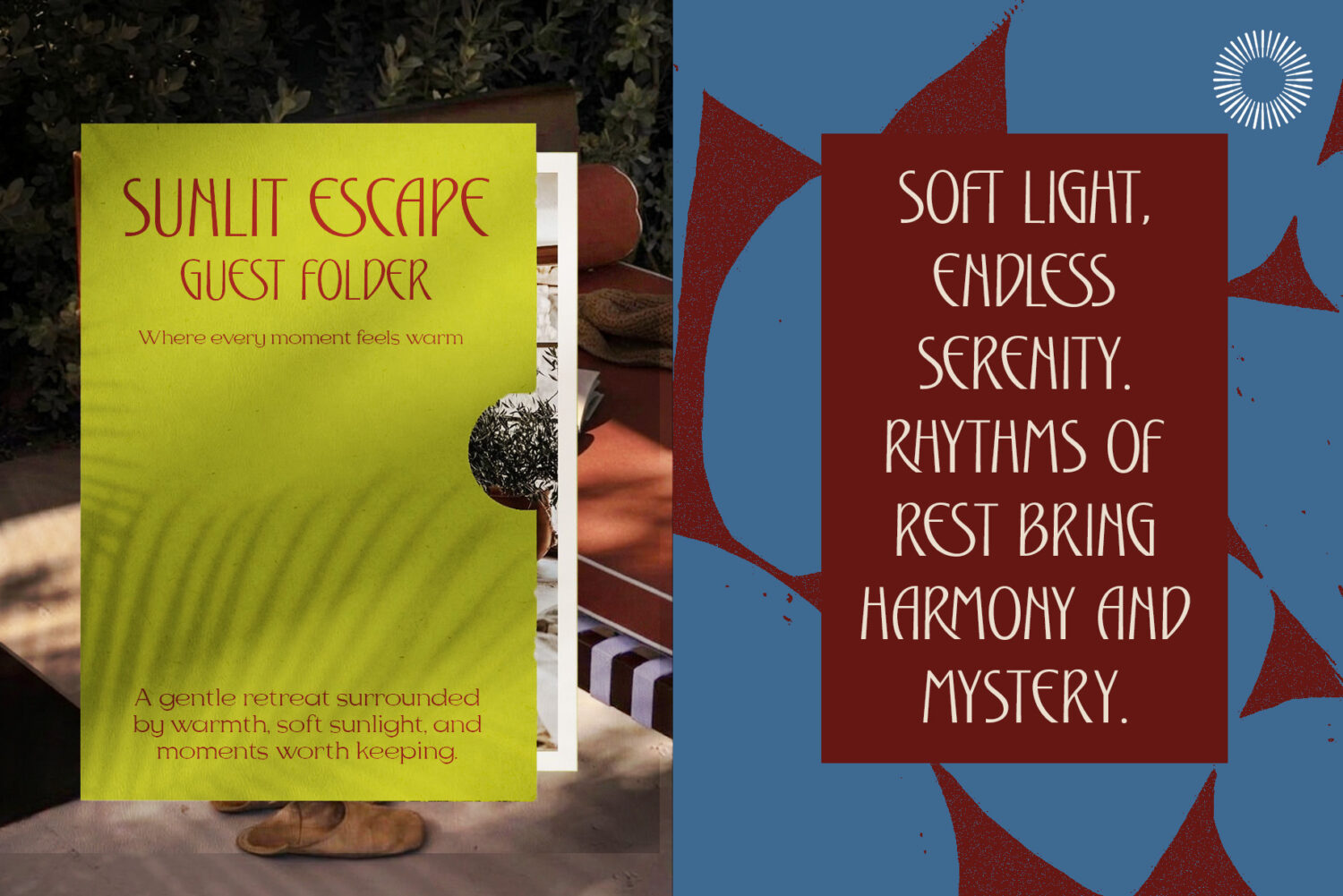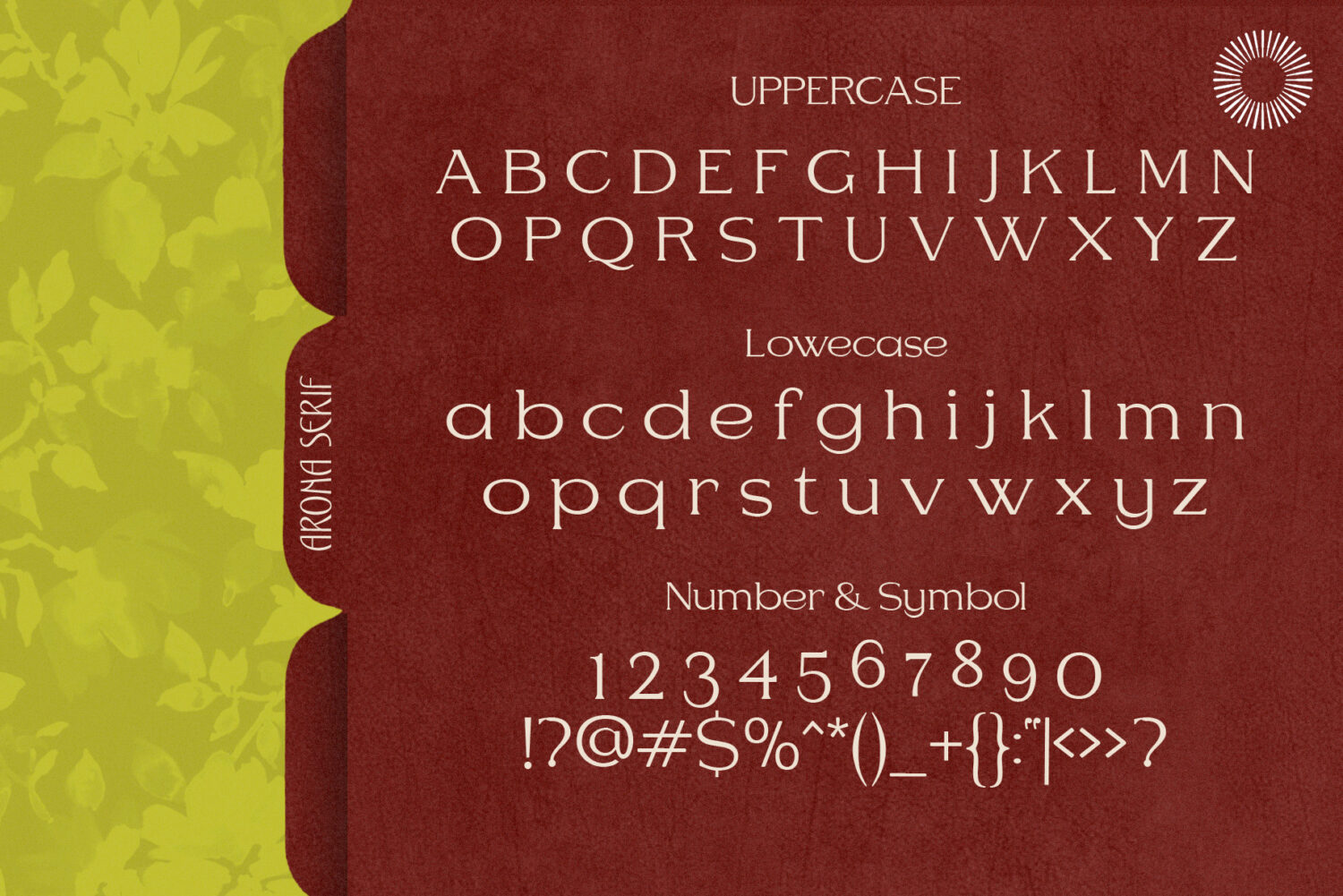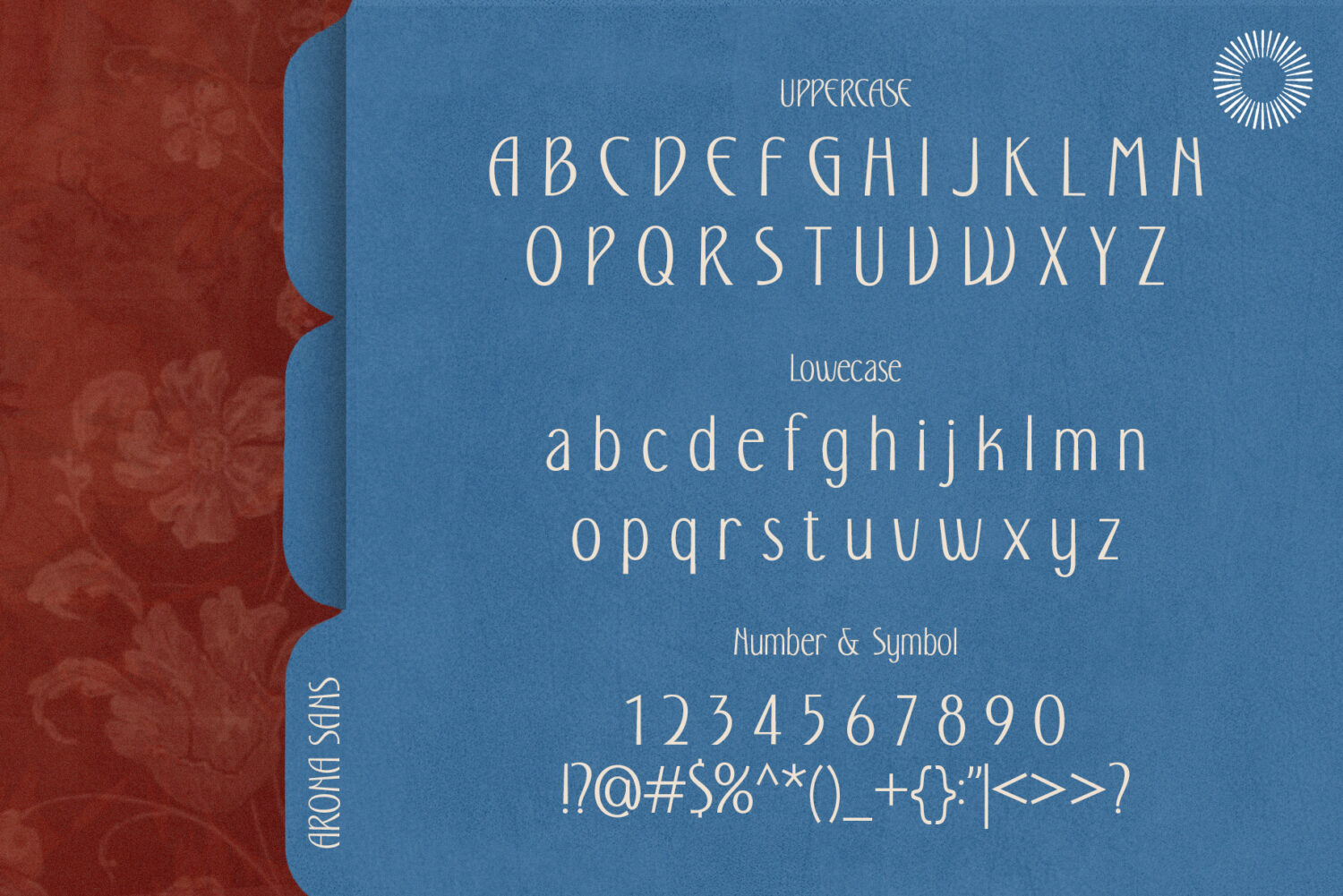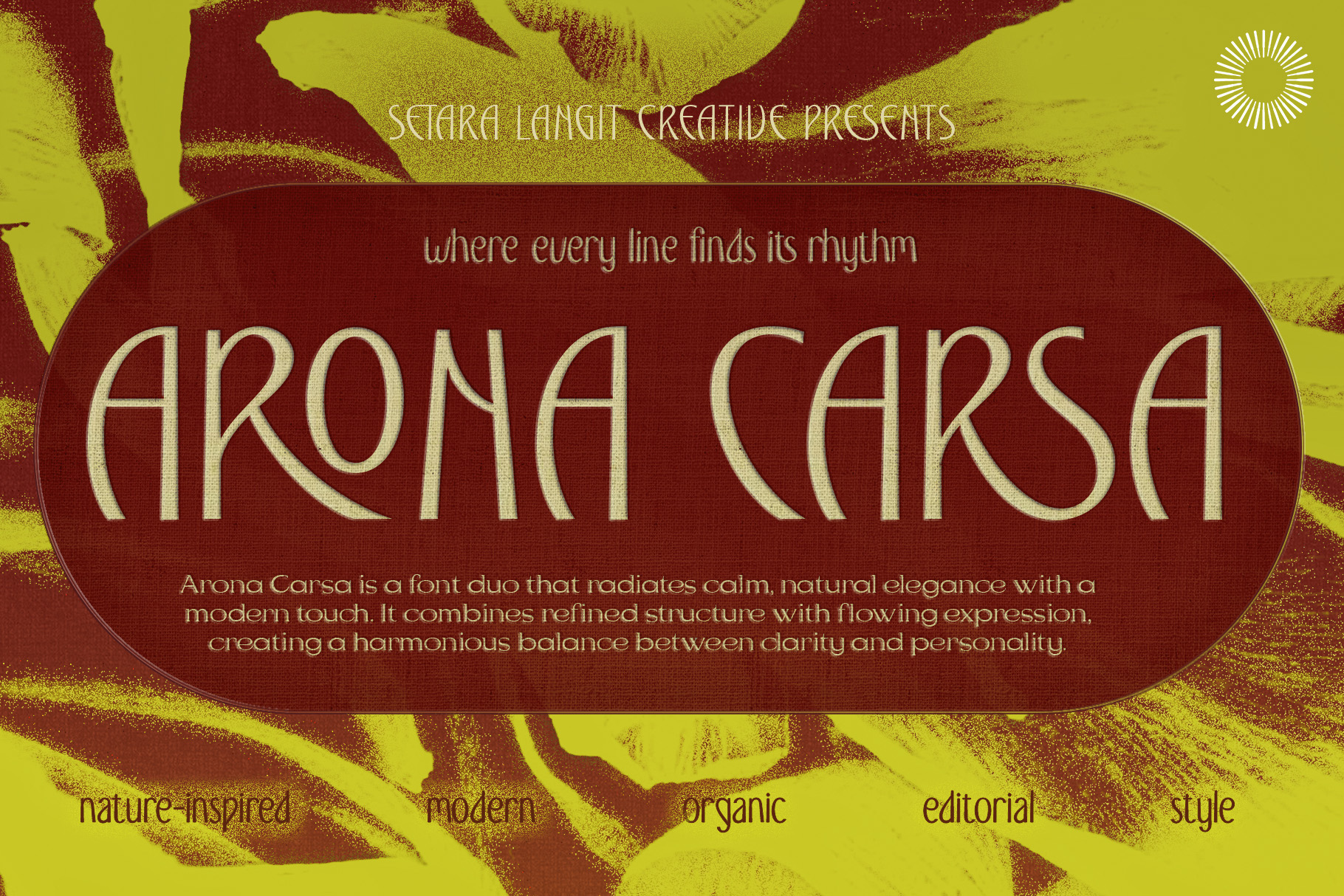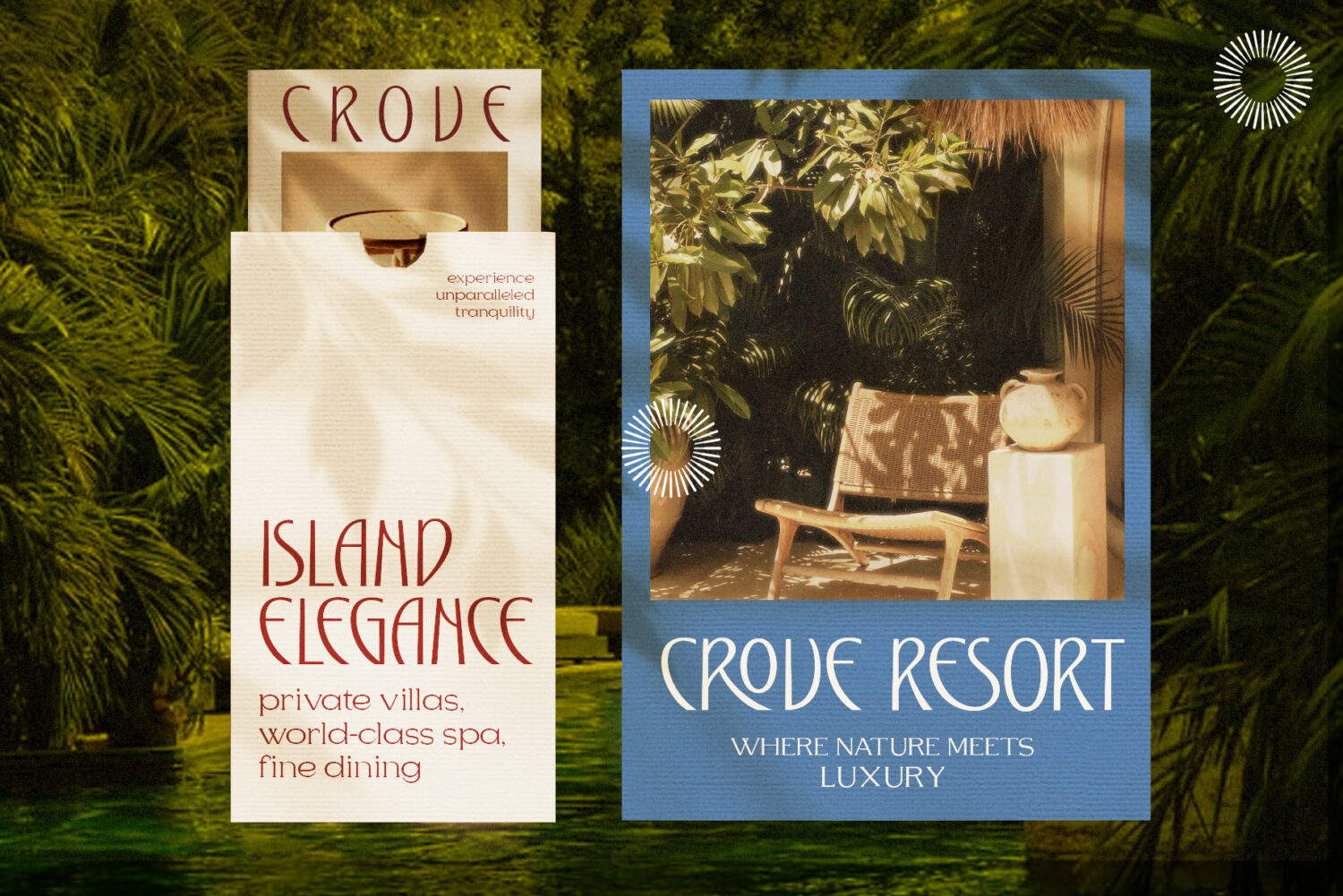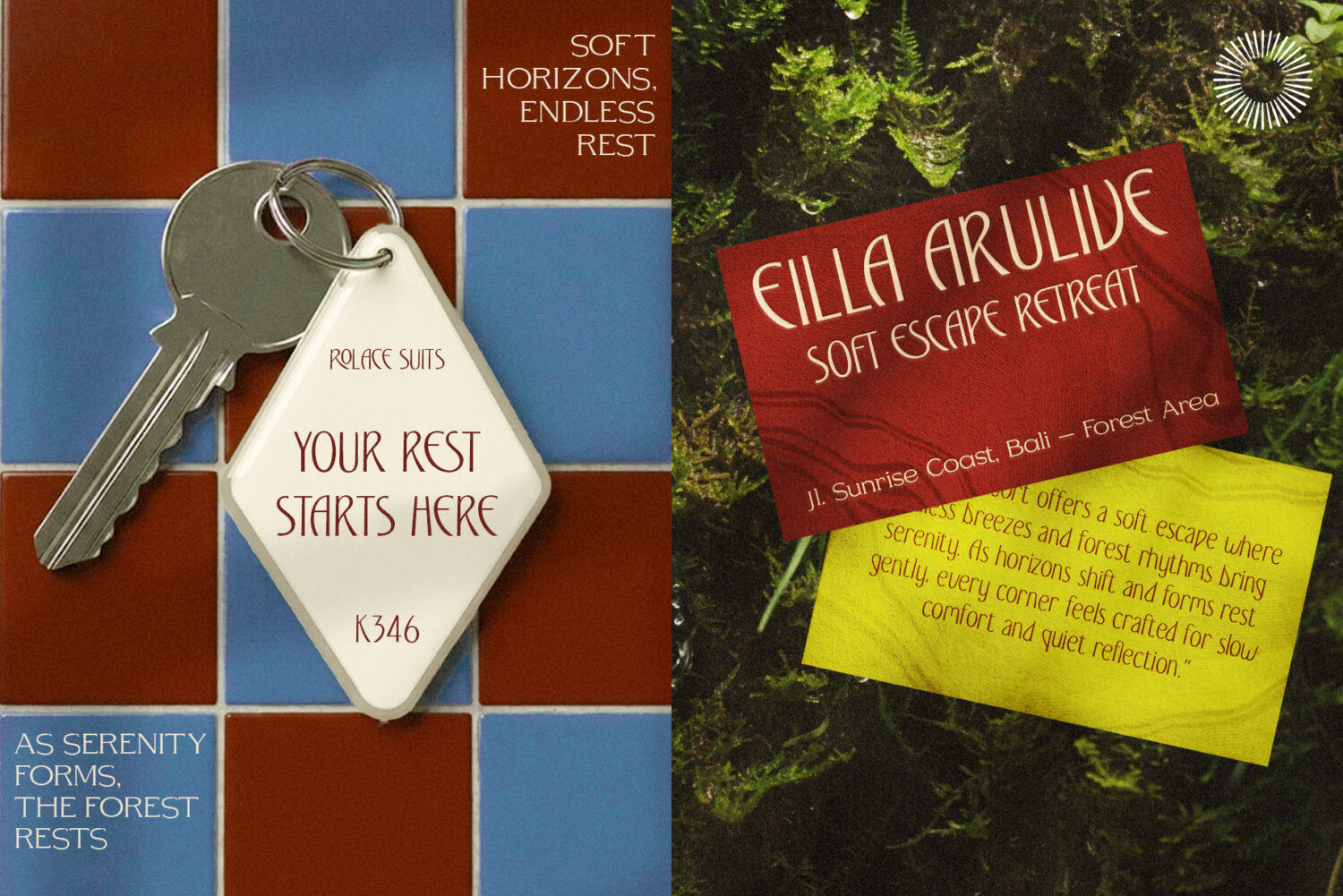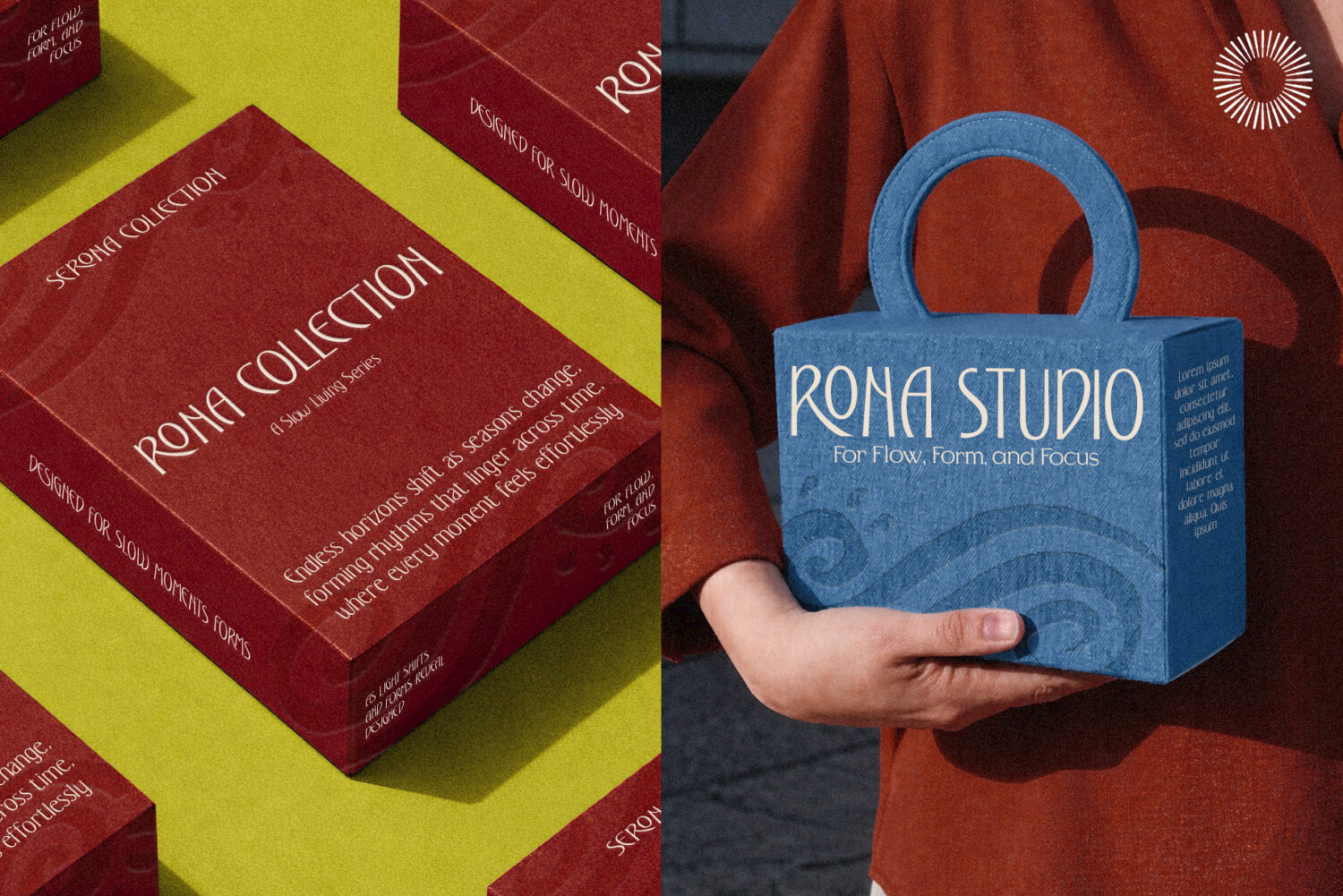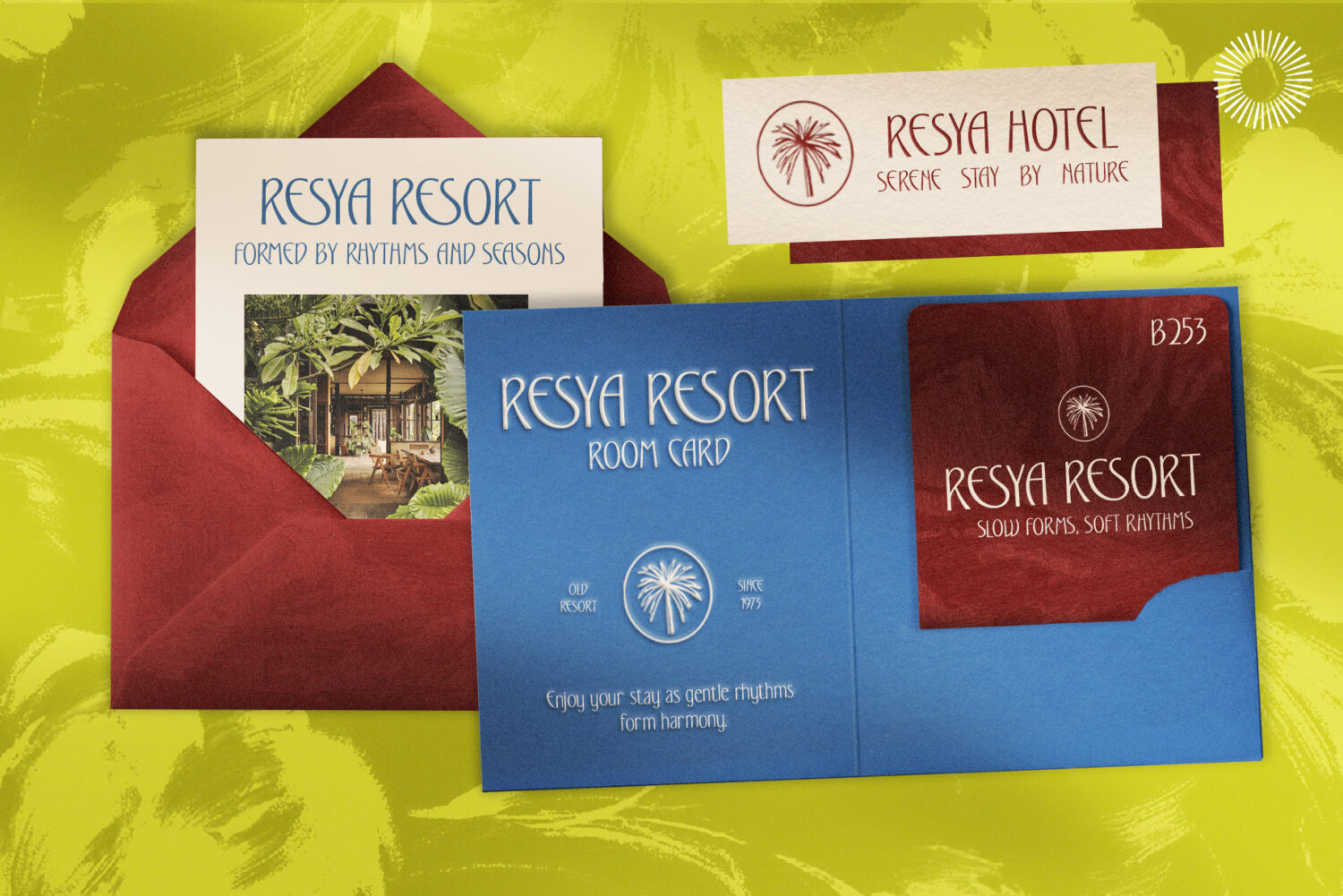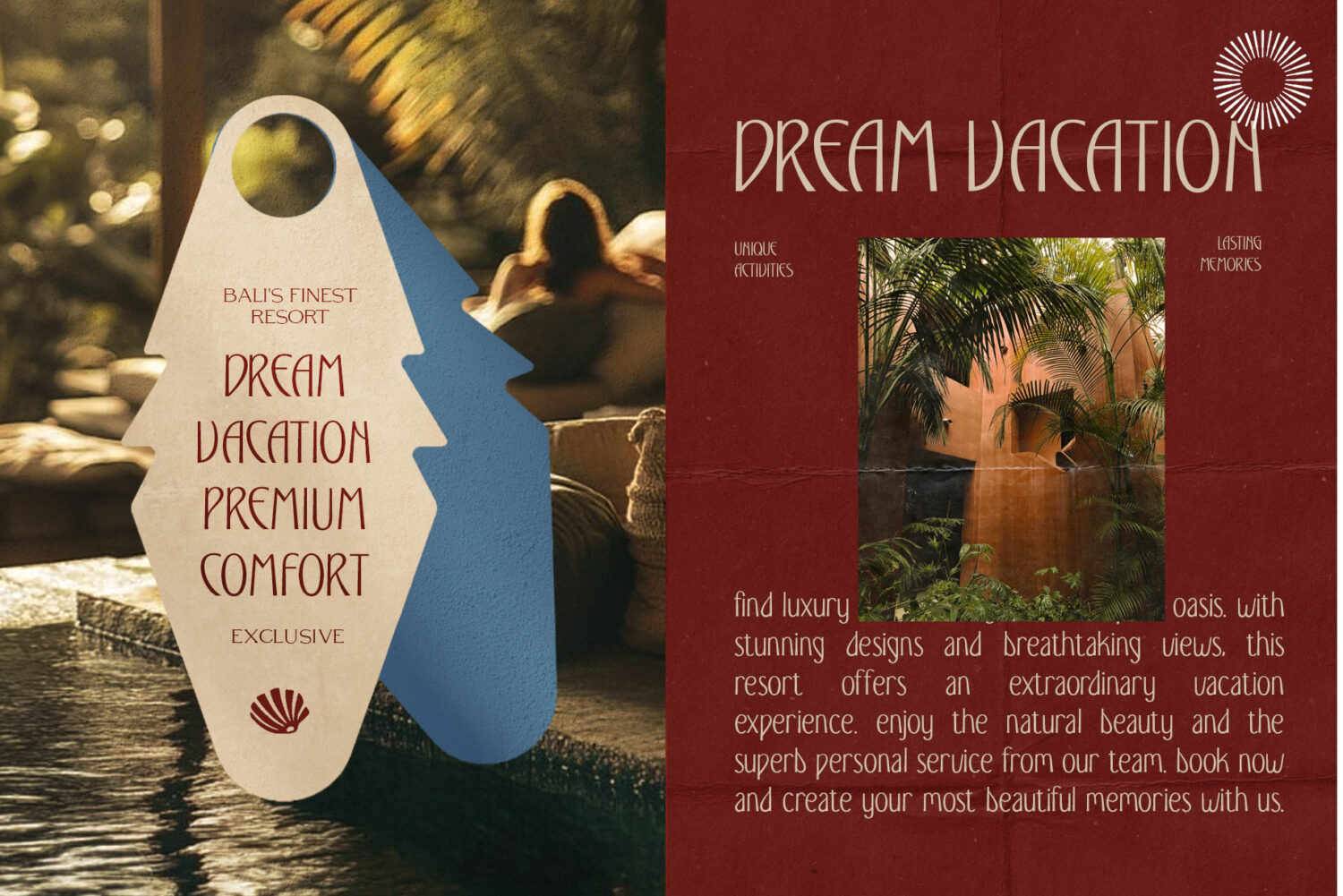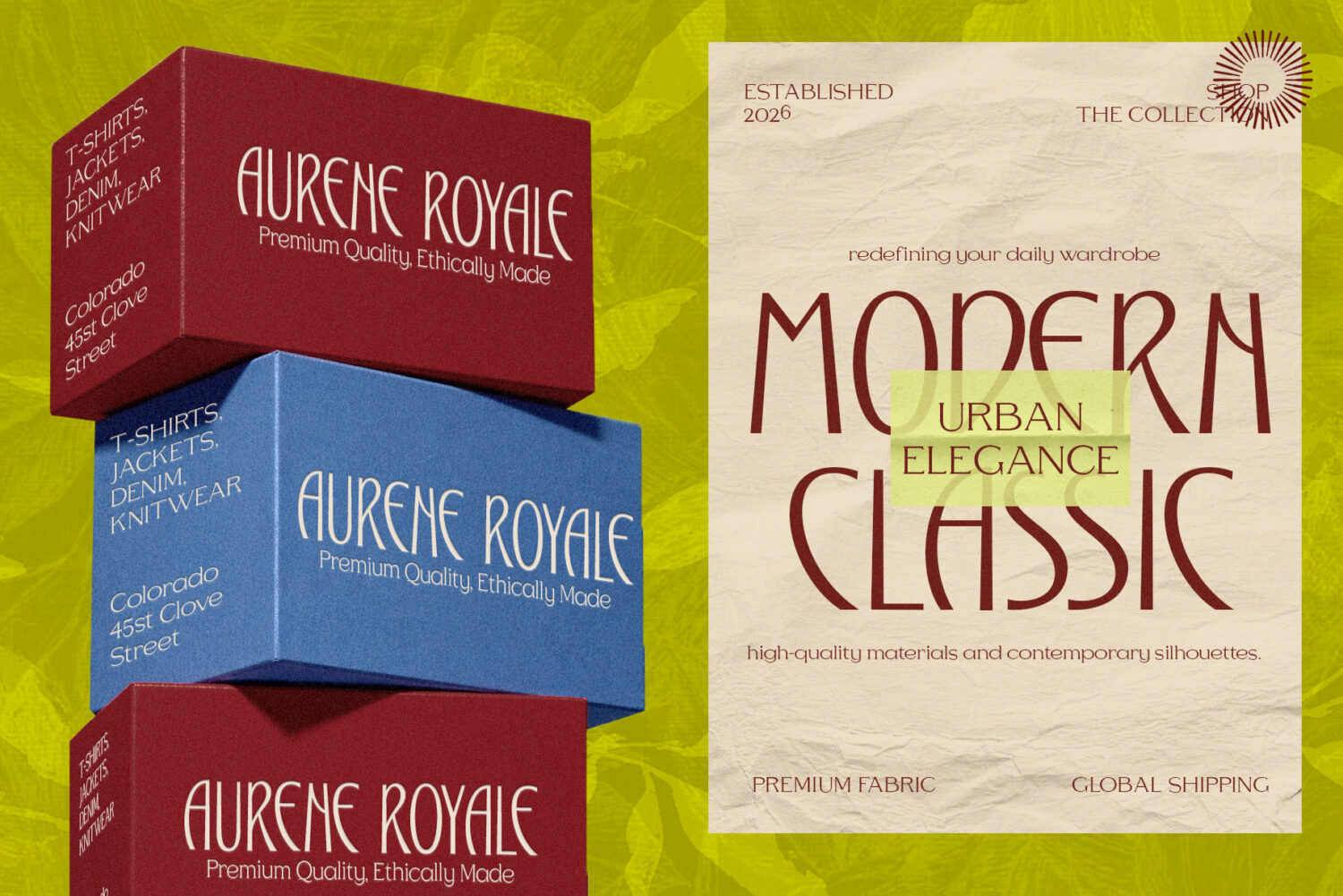
Arona Carsa Sans
Arona Carsa Serif
Arona Carsa – Font Duo
Arona Carsa is a modern font duo that combines a clean, refined sans serif with an elegant serif companion designed to create a balanced and versatile visual identity. The sans serif delivers clarity, simplicity, and a contemporary feel, making it perfect for modern branding. Paired with a graceful serif, it adds contrast and sophistication, bringing a subtle editorial touch to your designs. This combination allows you to create layouts that feel both minimal and expressive structured yet full of character.
• Uppercase & lowercase
• Numerals & punctuation